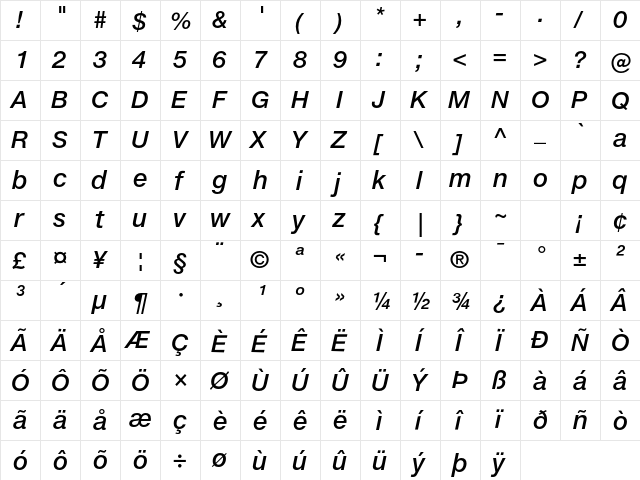
Helvetica Neue ET Std 66 Medium Italic
66 Medium Italic · Linotype GmbH Linotype Design Studio ·
Design Context for Helvetica Neue ET Std Typeface
Helvetica Neue ET Std takes a measured approach to typography — its balanced proportions and neutral character make it a reliable workhorse for both digital and print work. The dynamic lean of this cut emphasises speed and emphasis in any layout.